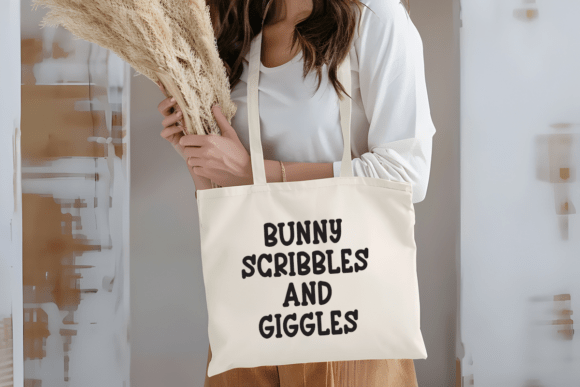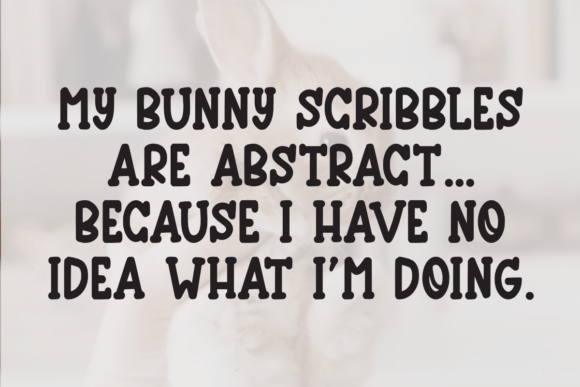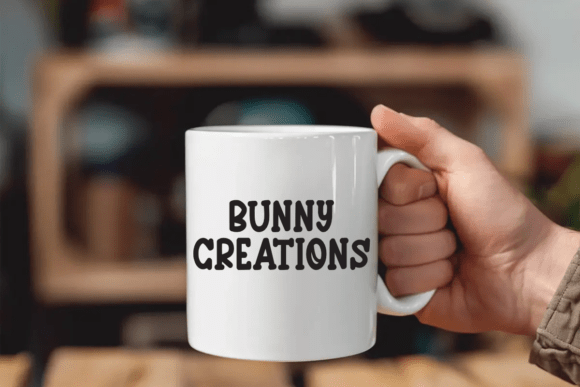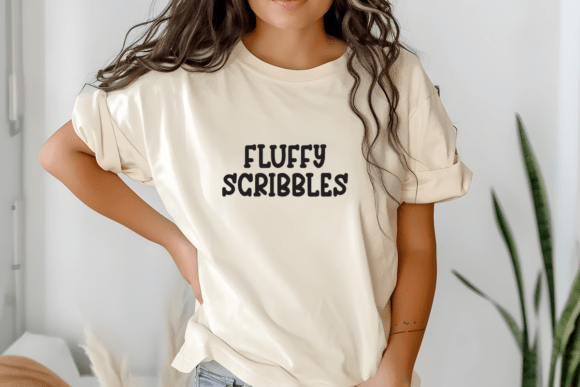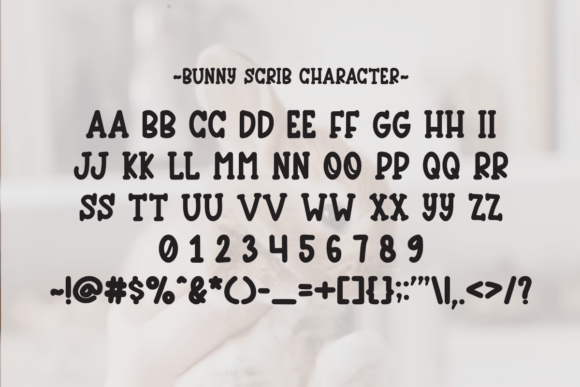
Bunny Scrib Font: Add a Joyful and Cozy Vibe to Your Designs
Are you looking for a font that can add a playful and whimsical touch to your designs? Look no further than the Bunny Scrib Font! This adorable slab serif font features bold, rounded edges that are sure to bring a smile to anyone’s face. In this article, we’ll take a closer look at the Bunny Scrib Font, its features, and how you can use it to elevate your designs.
What is Bunny Scrib Font?
Bunny Scrib Font is a cute slab serif font that boasts a unique and playful design. Its bold, rounded edges give it a whimsical look that’s perfect for a variety of design projects. Whether you’re creating Easter cards, playful product labels, or any other type of design that requires a fun and lively touch, Bunny Scrib Font is the perfect choice.
Key Features of Bunny Scrib Font
- Slab Serif Design: Bunny Scrib Font features a slab serif design, which gives it a bold and sturdy look.
- Rounded Edges: The font’s rounded edges add a playful and whimsical touch to any design.
- Bold and Easy to Read: The font is bold and easy to read, making it perfect for headlines, titles, and labels.
- Whimsical Look: The font’s unique design gives it a whimsical look that’s sure to add a joyful and cozy vibe to any project.
How to Use Bunny Scrib Font in Your Designs
Bunny Scrib Font is a versatile font that can be used in a variety of design projects. Here are some ideas to get you started:
- Easter Cards and Invitations: Use Bunny Scrib Font to create adorable Easter cards and invitations that are sure to delight your friends and family.
- Playful Product Labels: Add a playful touch to your product labels with Bunny Scrib Font. It’s perfect for labeling products that are geared towards kids or for creating fun and playful packaging.
- DIY Crafts: Bunny Scrib Font is perfect for crafters who love to create handmade cards, gift tags, and other DIY projects.
- Social Media Graphics: Use Bunny Scrib Font to create fun and engaging social media graphics that are sure to grab the attention of your followers.
Why Choose Bunny Scrib Font?
There are many fonts available that offer a similar look to Bunny Scrib Font, but here are a few reasons why Bunny Scrib Font stands out:
- Unique Design: Bunny Scrib Font has a unique design that’s sure to add a playful and whimsical touch to any project.
- Easy to Read: The font is bold and easy to read, making it perfect for headlines, titles, and labels.
- Versatile: Bunny Scrib Font can be used in a variety of design projects, from Easter cards to playful product labels.
Tips for Using Bunny Scrib Font
Here are a few tips for using Bunny Scrib Font in your designs:
- Use it as a Headline Font: Bunny Scrib Font is perfect for use as a headline font. Its bold and playful design makes it sure to grab the attention of your audience.
- Pair it with Other Fonts: Bunny Scrib Font can be paired with other fonts to create a unique and interesting design.
- Experiment with Colors: The font’s playful design makes it perfect for use with bright and bold colors.
Bunny Scrib Font is a fun and playful font that’s perfect for designers and crafters who want to add a joyful and cozy vibe to their designs. Its unique design, bold and rounded edges, and whimsical look make it perfect for a variety of design projects. Whether you’re creating Easter cards, playful product labels, or any other type of design, Bunny Scrib Font is sure to be a great choice.